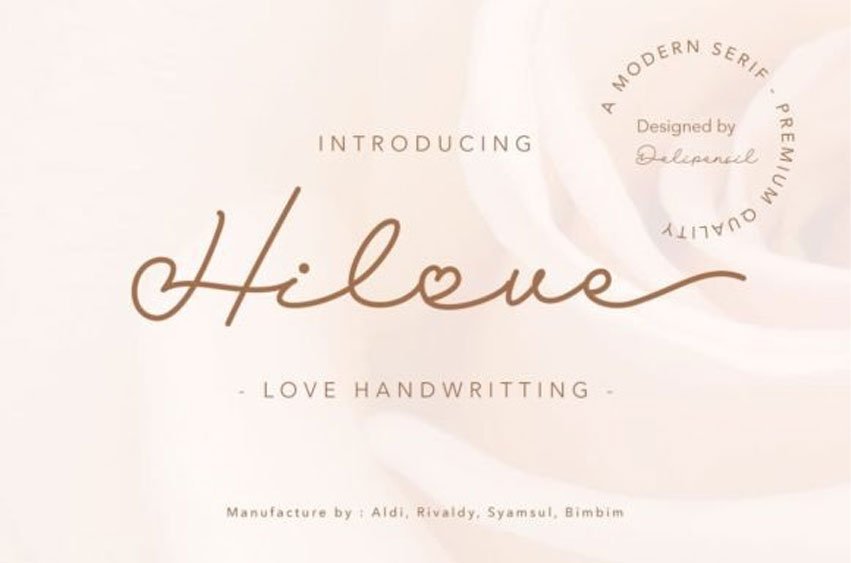
Hilove Font is a charming and elegant love-inspired handwriting font that adds a touch of romance to your messages and designs.
Perfect for expressing affection and warmth through your words.